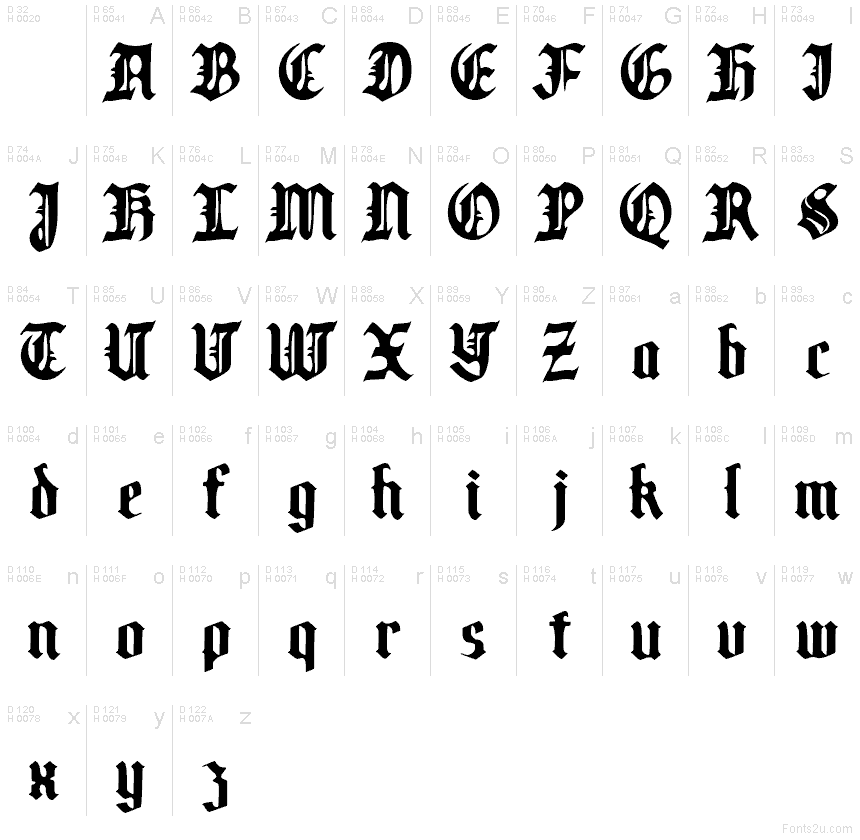
CSClaesDrawn-Regular Demo
CS Claes Drawn font evokes the dark atmosphere of Gothic lettering. Designed by Craft Supply Co., this free gothic font features decorated characters in an overall medieval style. It reflects tradition and gives a dramatic effect and an antique appearance to designs.
Consider it in use for graphics about history, for branding and naming medieval shops, for specific textbooks, magazines, posters, greeting cards, logo design, video game design or film use.